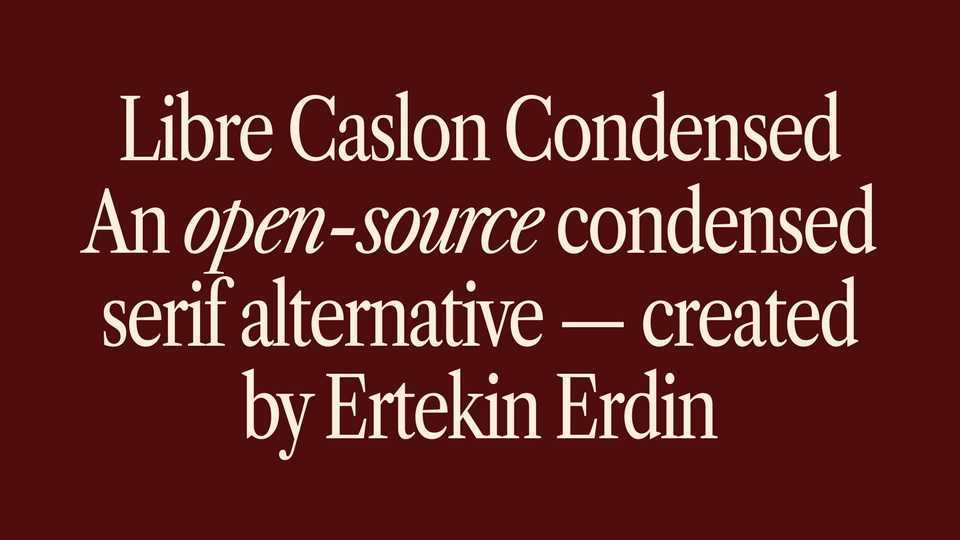
Download Libre Caslon Condensed font, a condensed serif alternative designed to fill the gap in the market for high-quality condensed serif alternatives. Libre Caslon Condensed offers a harmonious blend of elegance and readability, making it an ideal choice for various design projects.
Designer: Ertekin Erdin